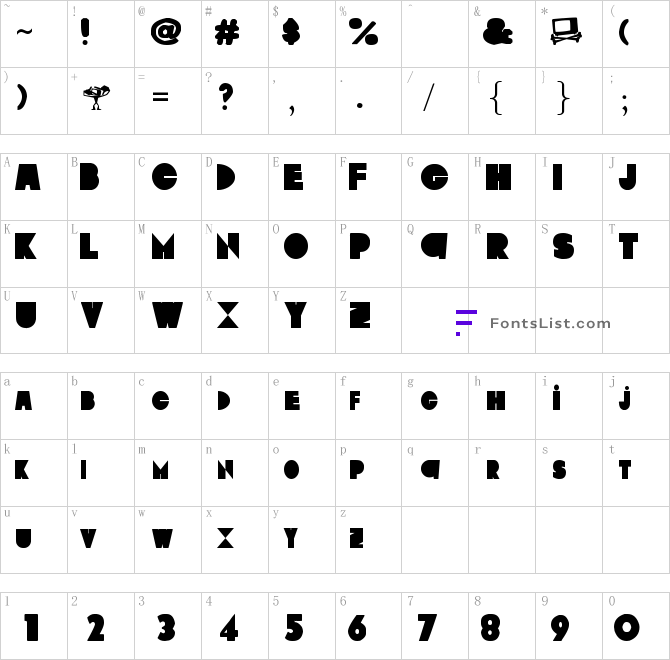
- Font Name:Basterds
Basterds-copy-1-.ttf is a very beautiful artistic font, Basterds-copy-1-.ttf is widely used in the design and printing of various books and pictures,Basterds-copy-1-.ttf has a strong visual impact,Basterds-copy-1-.ttf is a commonly used font in newspapers, magazines and books, and is used in posters, e-commerce Poster design, store design, logo design, font design and other fields.Basterds-copy-1-.